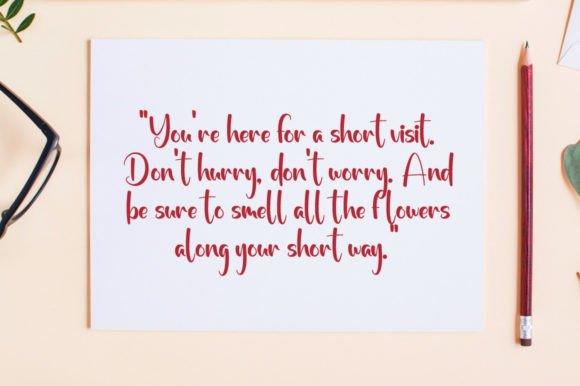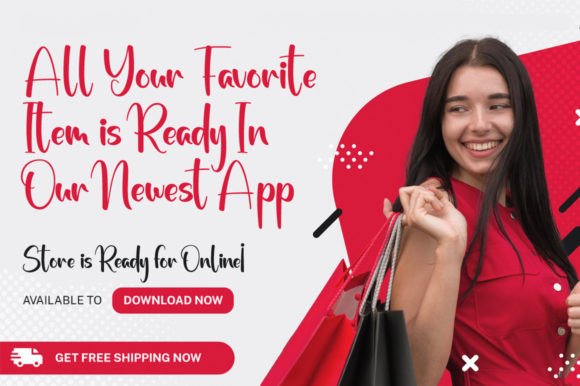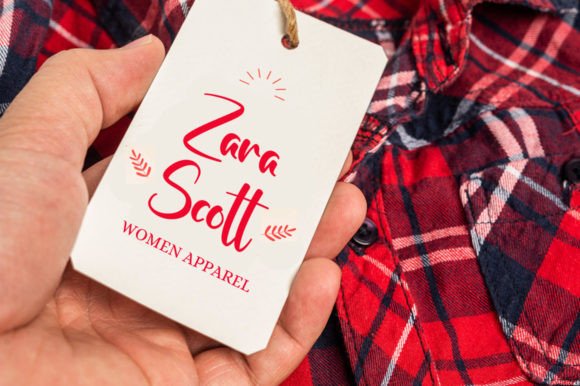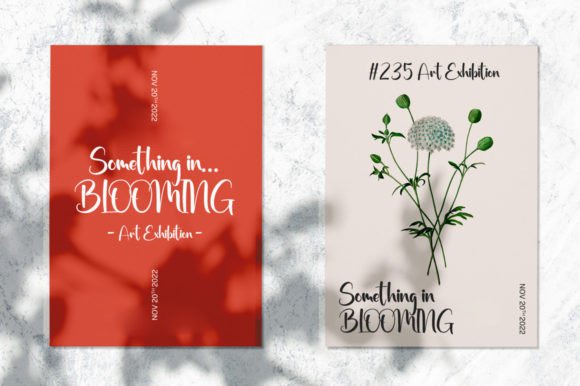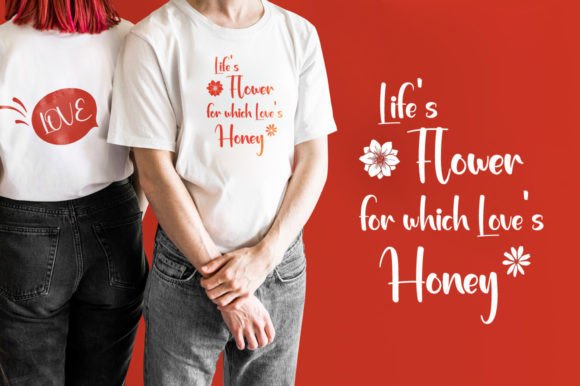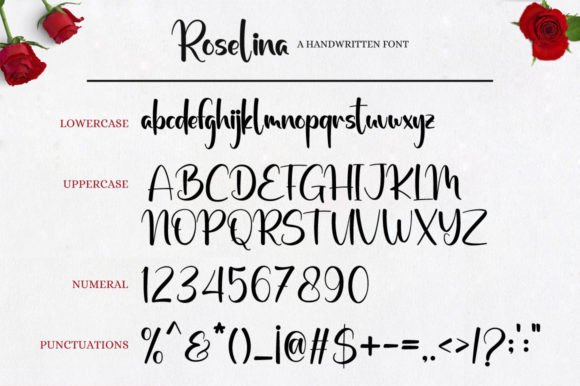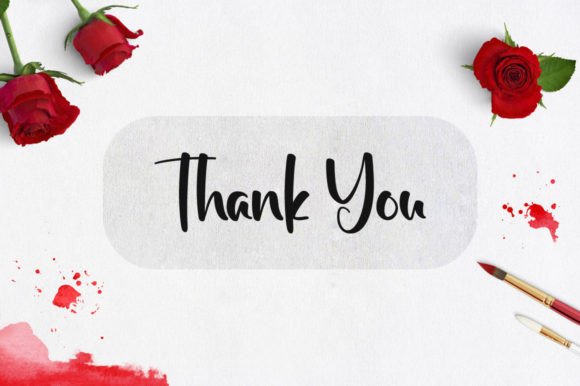
Roselina Font
About Roselina Font
Roselina Font is a lovely and timeless handwritten typeface designed to add charm and elegance to your creative projects. Its graceful letterforms and classic style make it an excellent choice for logos, branding, quotes, and other designs that require a warm, personal touch.
Elegant and Timeless Design
Roselina features smooth, flowing strokes that blend beauty and readability. The font’s timeless appearance ensures your work stays stylish and relevant across different applications. Whether you are designing a brand identity or creating inspirational quotes, Roselina adds sophistication and appeal.
Ideal Uses for Roselina Font
This versatile font works well for:
• Logos and brand identities
• Inspirational quotes and social media posts
• Product packaging and labels
• Greeting cards and invitations
• Editorial and marketing materials
Roselina’s elegant style fits a variety of design needs.
Why Choose Roselina Font?
Designers appreciate Roselina for:
• Lovely, handwritten letterforms
• Timeless and versatile style
• High readability and elegance
These qualities make Roselina a practical and beautiful font for many projects.
Add Charm and Sophistication to Your Designs
Typography sets the mood and emotion of your project. Roselina adds warmth, elegance, and a personal touch, helping your designs connect with the audience. It’s ideal for making your logos, branding, and quotes truly stand out.
In conclusion, Roselina Font is a lovely and timeless handwritten script perfect for designers seeking elegance and versatility. Add Roselina to your font collection to create memorable and stylish logos, branding, and quotes.